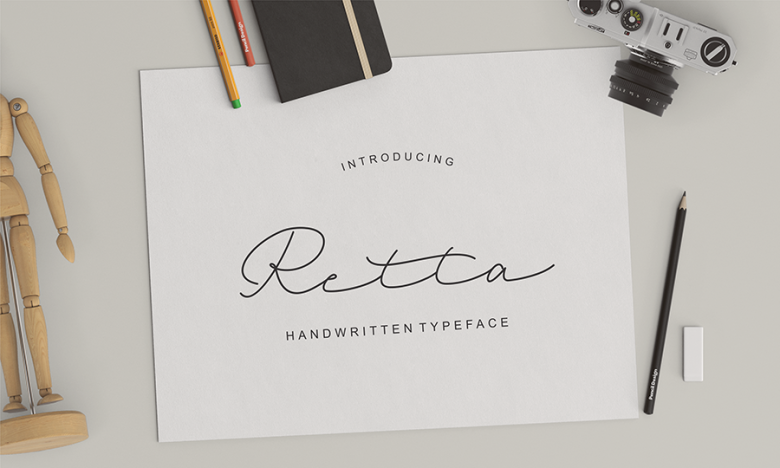
Retta Handwritten Font
Hi designer! Befonts always recommend you the best fonts, and now is a handwriting Typeface. Introducing Retta Font, it is was designed and shares by DENNI DENKO. This modern handwritten script has been attentively written, with gentle curves to produce a font thats completely distinctive and original. Perfect for adding a elegant and unique touch to your lettering projects and branding.